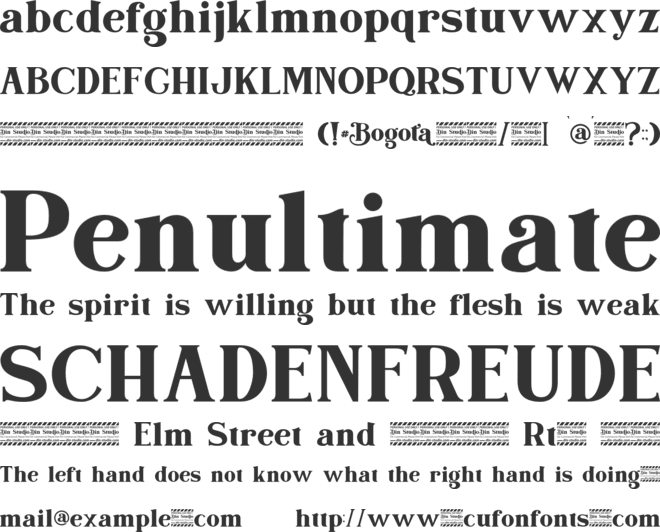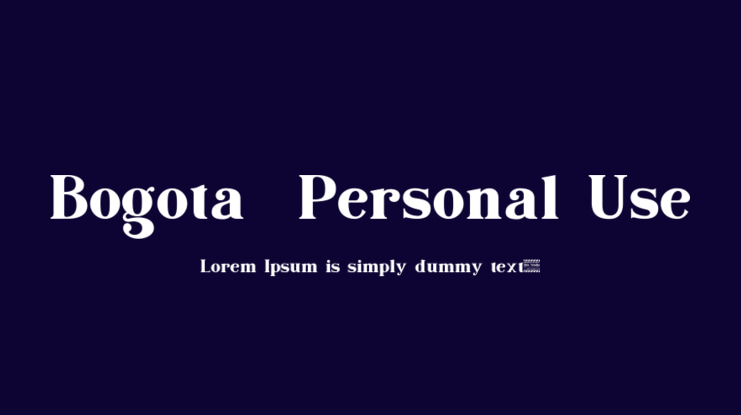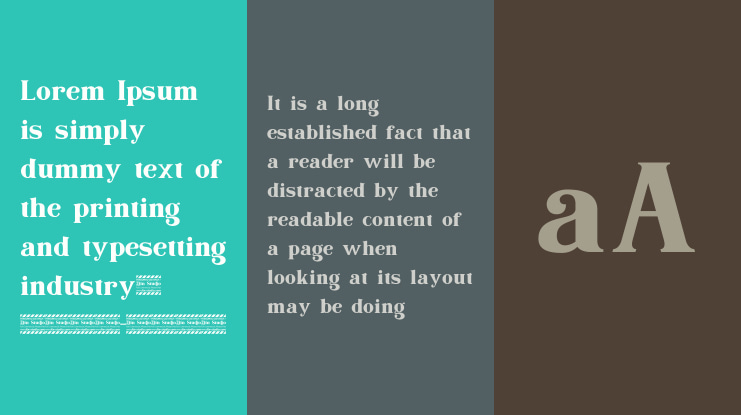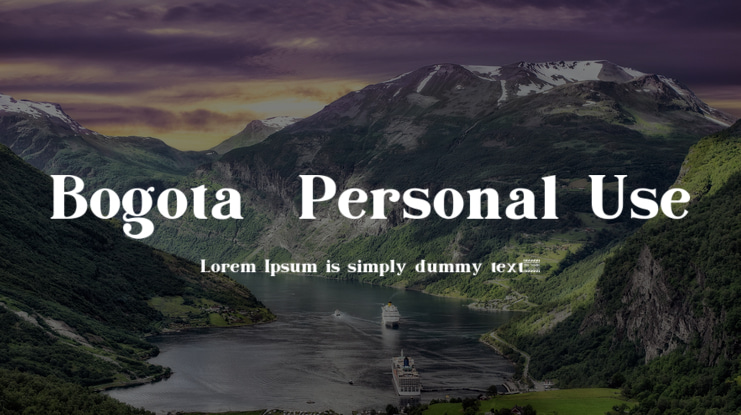
Say hello to Bogota font. The Bogota font is a modern and clean display (Serif) font. Create from our talented font designer. The design of typeface will make your design more beautiful and inspiring. This font will suitable for any project, like branding, print template, logo and etc. The font also available in a thin version (pairing font).